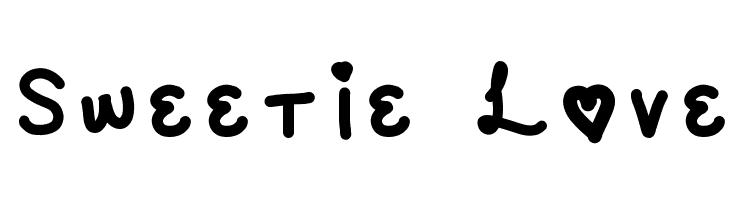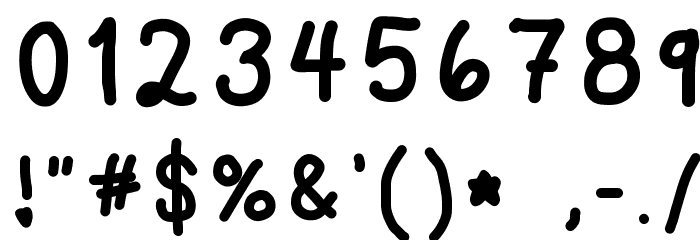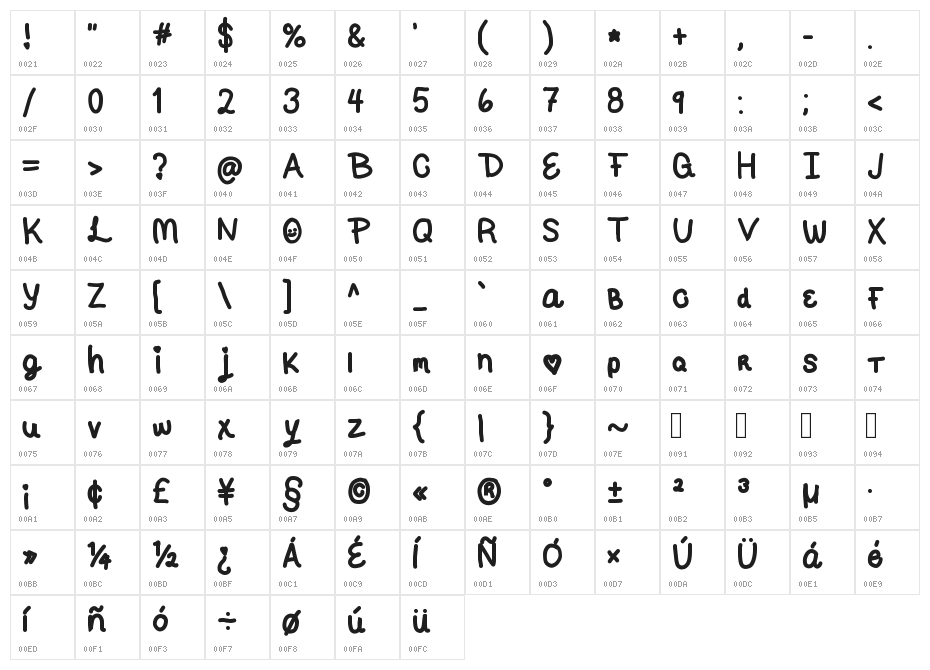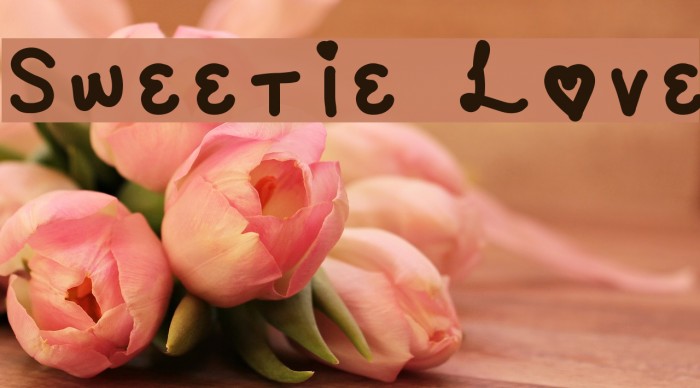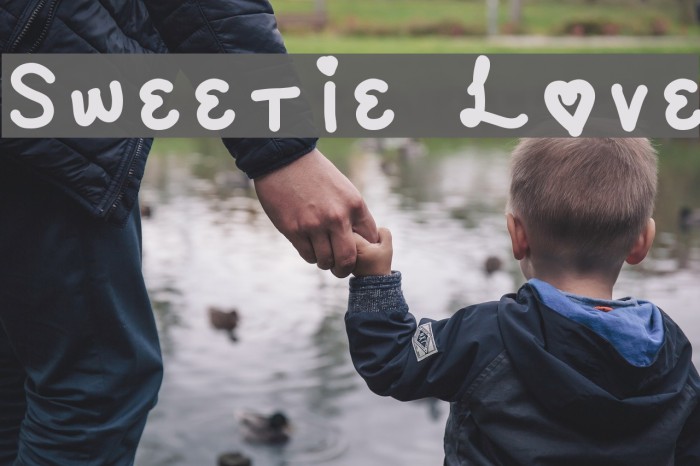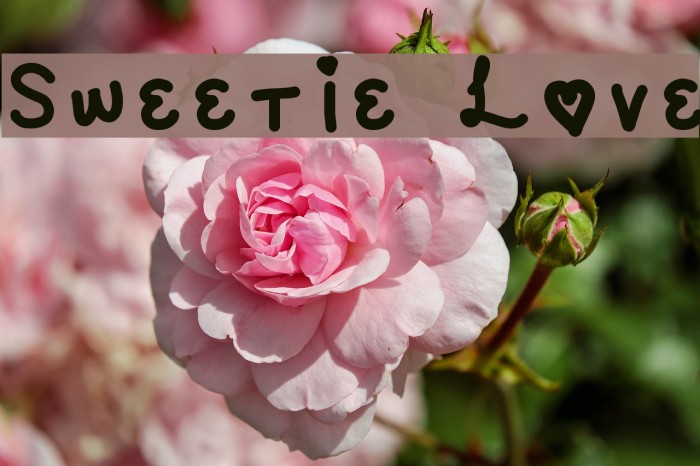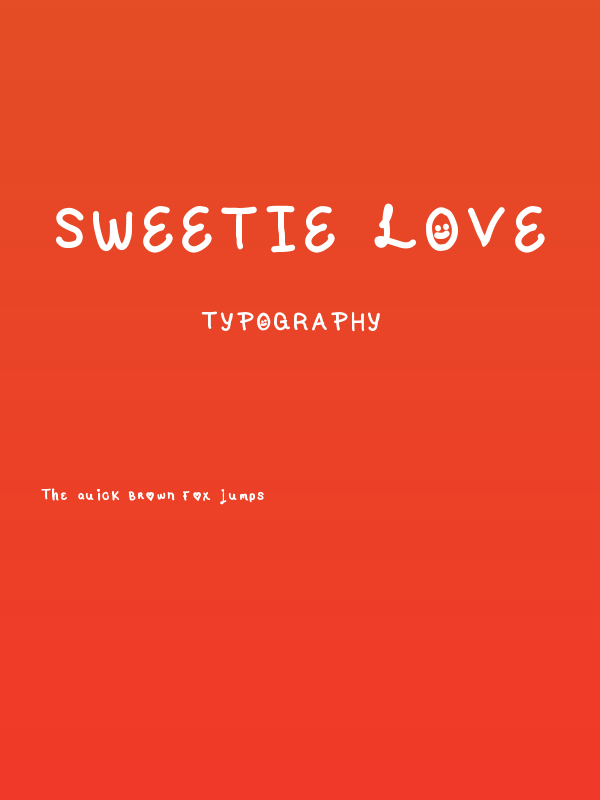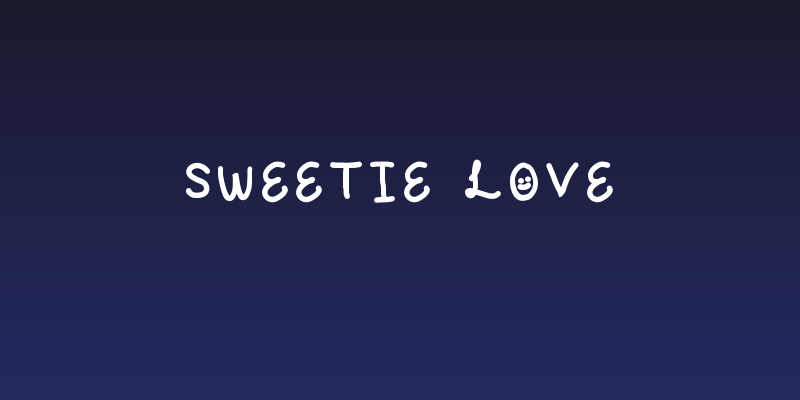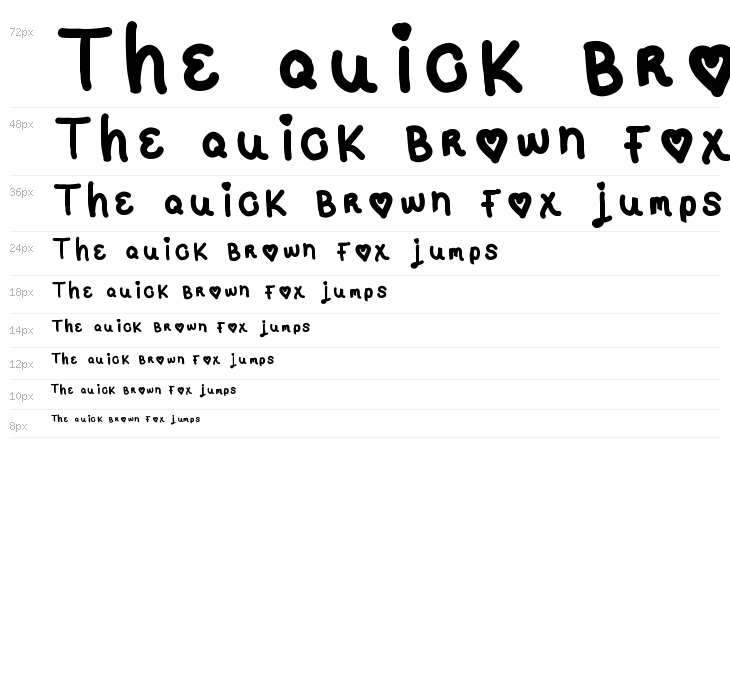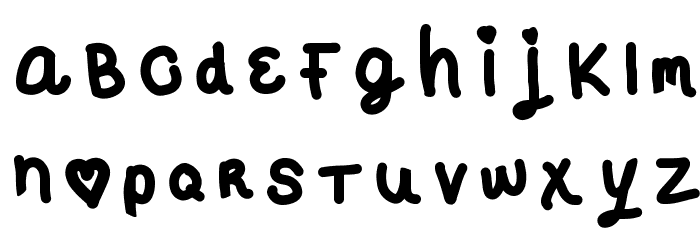
Sweetie Love Font
Sweetie Love Description
This playful and whimsical font features a handwritten style with a charming and casual appearance. The characters are rounded and slightly irregular, giving them a friendly and approachable feel. The uppercase letters are bold and distinct, while the lowercase letters maintain a consistent flow with playful variations. Numbers and special characters are designed with the same quirky style, adding to the font's overall charm. The heart-shaped elements within some letters add a unique touch, making it ideal for projects that require a personal and heartfelt expression.